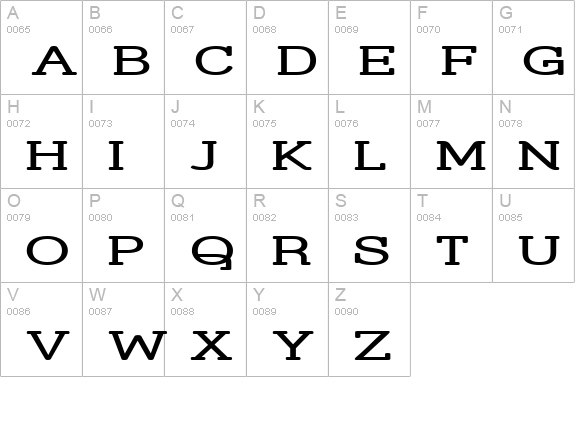
Street Corner Slab Extend font is a modern and stylish typeface that exudes confidence and versatility. With its bold, slab serif design and extended letterforms, this font is perfect for making a statement in headlines, posters, branding materials, and more. The sharp edges and clean lines give Street Corner Slab Extend a contemporary and urban feel, making it suitable for a wide range of projects. The best part? Street Corner Slab Extend font is available for free download at FontsMarket.com. This means that you can easily access this high-quality font and enhance your designs without any cost involved. Whether you're a professional designer looking to add a fresh touch to your work or a hobbyist creating personal projects, Street Corner Slab Extend font is a fantastic choice that won't break the bank. Don't miss out on the opportunity to elevate your designs with the unique style of Street Corner Slab Extend font. Download it for free today and start creating stunning visuals that stand out from the crowd.